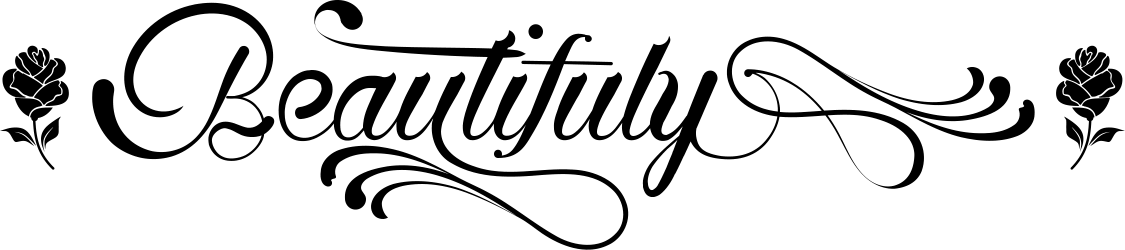
Beatifuly Font
Welcome to the new beautiful font! Here is Beatifuly a calligraphy font with a flower-patterned design that can attract maximum attention at first sight. This font is inspired by flowers and the delightful play of a pen on paper.
It can be an ideal option for any feminine assignment because of its design. You can use it in any greeting cards, quotes, logos, posters, or apparel, to add an artistic effect to your final design. Download and enjoy!
Beautifuly is inspired by Indonesian Classic Jepara Sclupture Art with elegant, luxury, beauty and classy characteristics. This font is conceptualized seriously and deeply to make it a truly extraordinary font.
So “Beautifuly” is very-very suitable for almost all projects such as: logotypes, branding, wedding invitations, jewerly labels, classy debit-credit card, romantic cards, classy drink labels, packaging, spelling of names and others wich need classy-extraordinary touch.